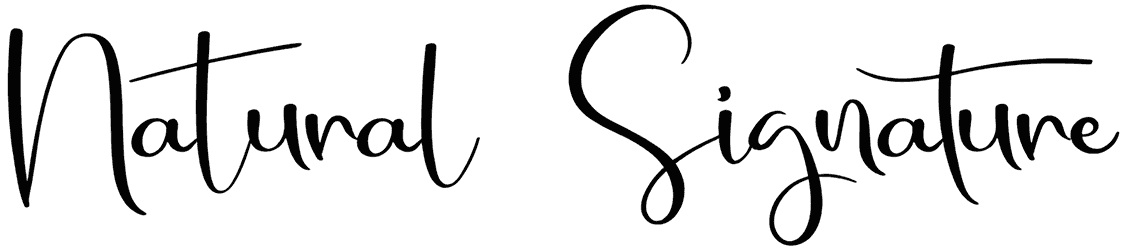
Natural Signature Font
Today we are going to introduce you to our new signature font, Natural Signature, which comes with an elegant style and sweet charm. It has all the uppercase and lowercase letters, numbers, and punctuation that make it usable for title and body text as well. This font is well-suited for any personal design, such as greeting cards, party invitations, taglines, social media, and branding purposes.
Natural Signature is a lovely and delicate script font that exudes elegance and class. This font was particularly crafted for those who need a beautiful and refreshing look to their designs.